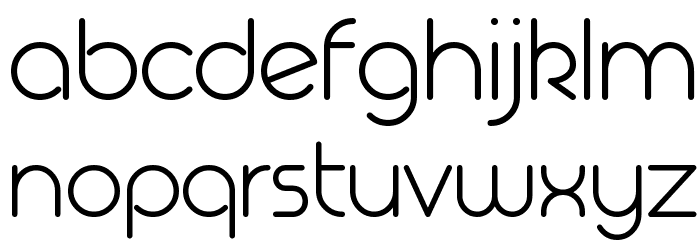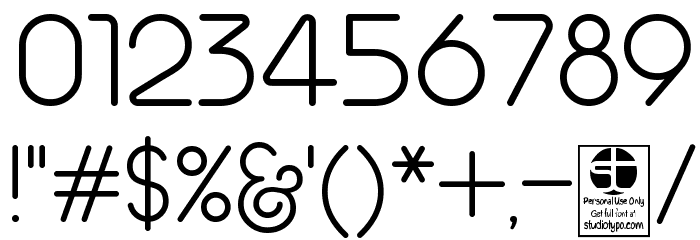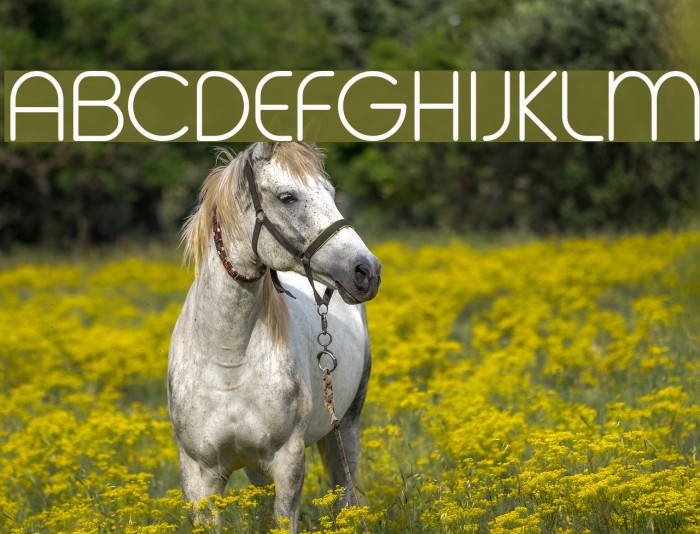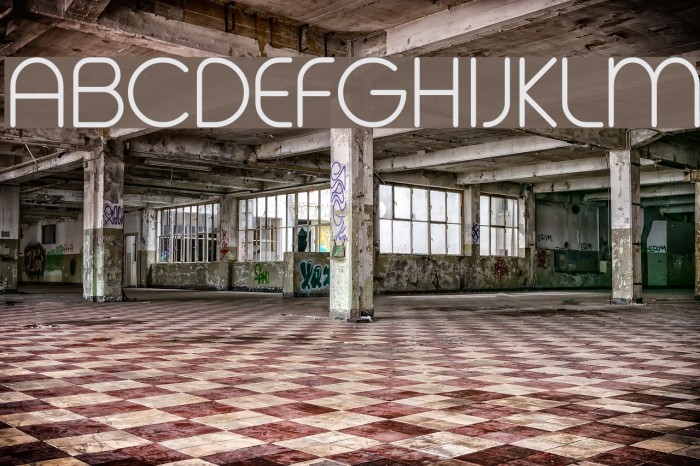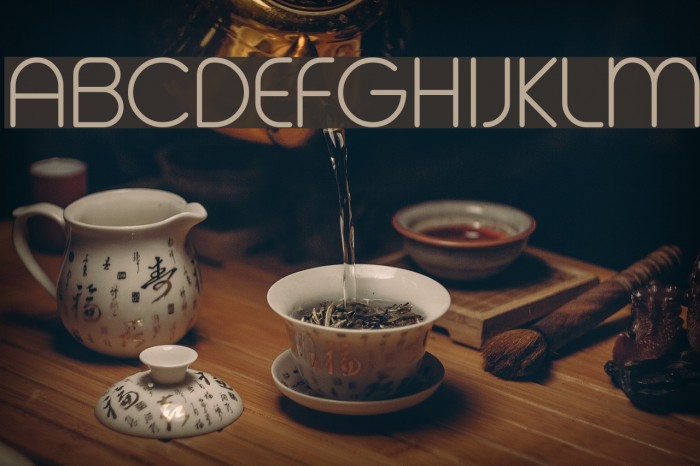
Geoma Light Demo Font
This font features a clean and modern aesthetic with a geometric design. The characters are constructed with consistent stroke widths, giving it a uniform appearance. The rounded edges and open forms contribute to its approachable and friendly look. The uppercase and lowercase letters maintain a harmonious balance, while the numerals and special characters align seamlessly with the overall style. Its simplicity and clarity make it suitable for various design applications, emphasizing readability and elegance.
A modern, geometric font with rounded edges and consistent stroke widths.
- Proposed Projects: Ideal for branding, digital interfaces, signage, and editorial design projects.
- Use Case: Headlines, Body text, Logos